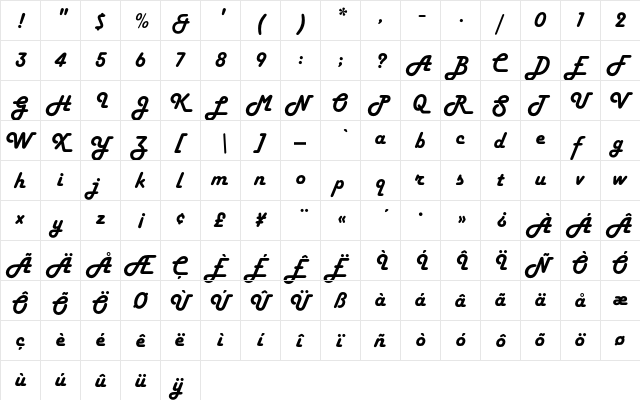
HarlowEF-Solid Regular
Design Context for HarlowEF-Solid Typeface
HarlowEF-Solid is a composed and adaptable typeface that performs quietly and consistently across a wide range of design contexts.